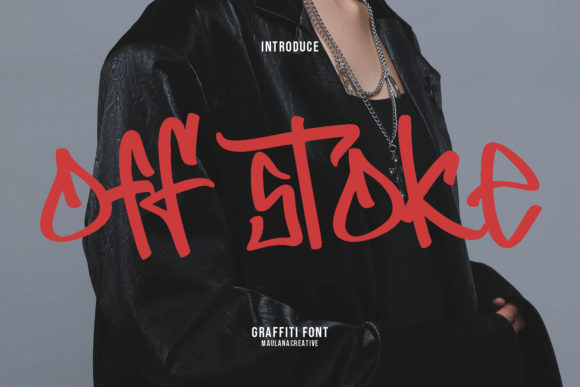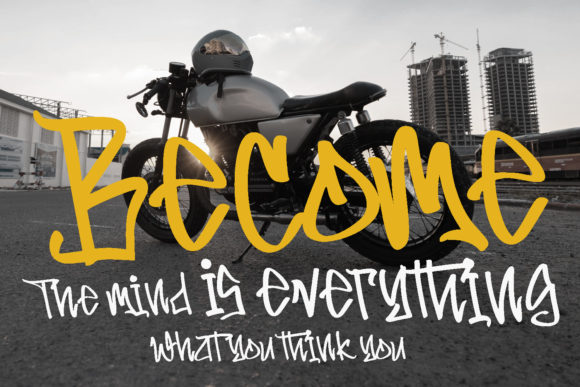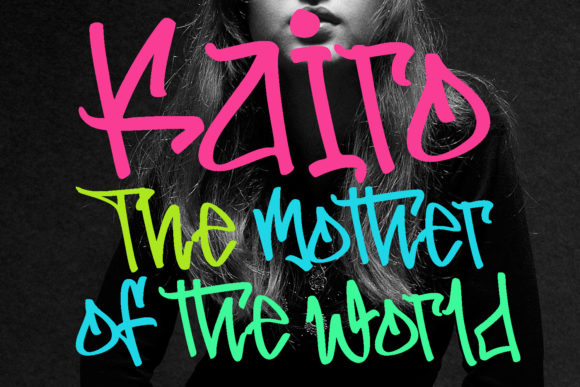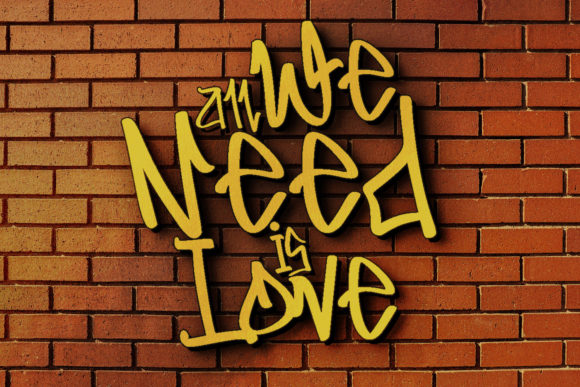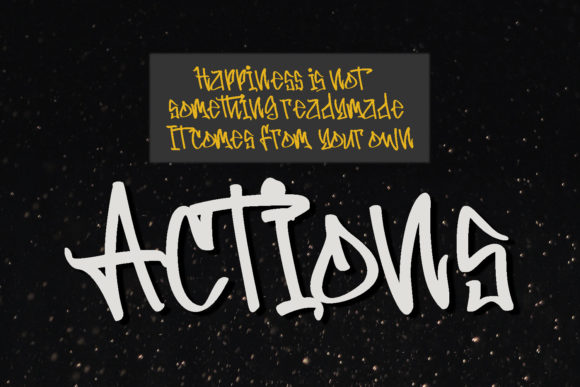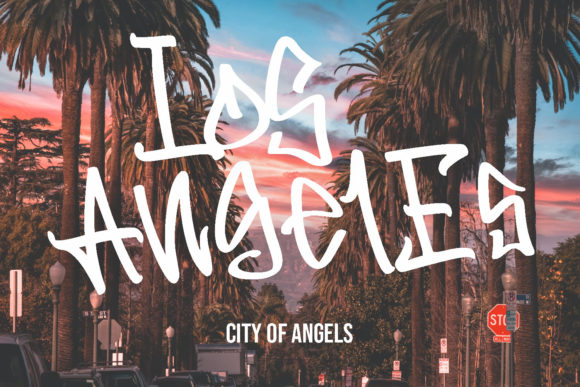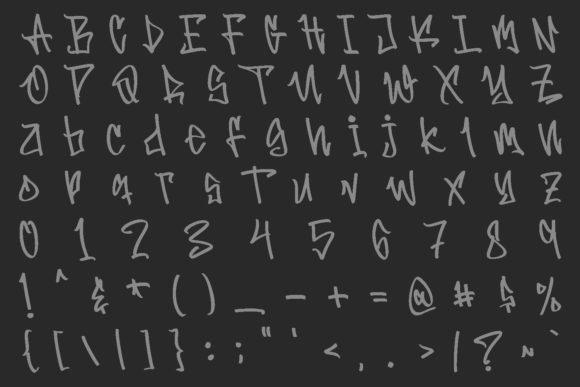
Off Stoke Font Font
Offsstoke is a fancy graffiti style font. With back slanted mono-line stroke, fun character with a bit of ligature and alternates. Whimsical and a bit quirky, this font will brighten up each of your designs. Add it confidently to your projects, and you will love the results.